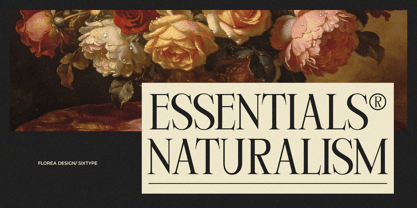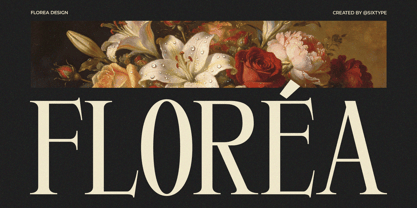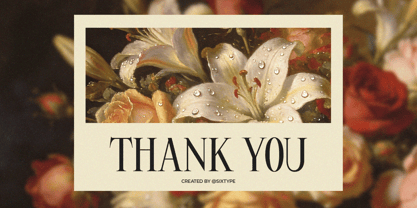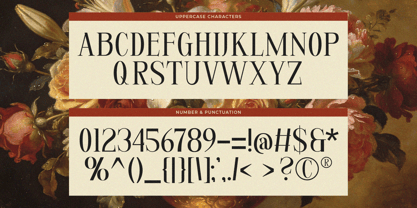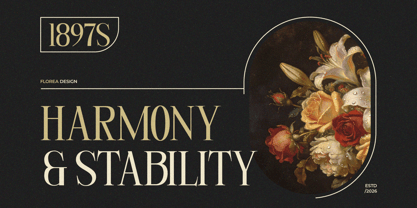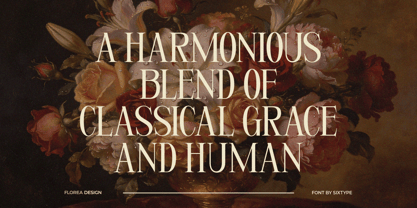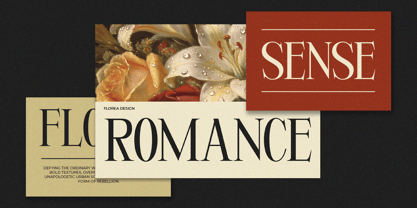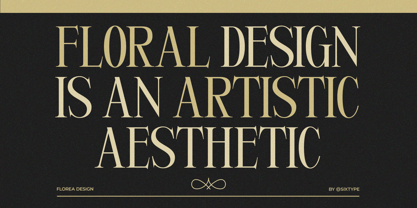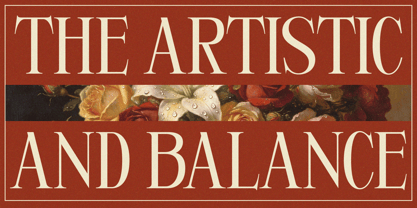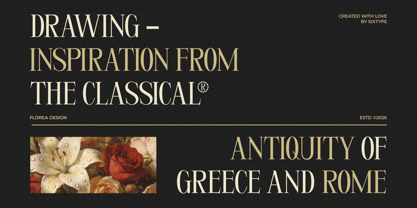
Florea
by Sixtype Foundry
Florea is a refined vintage serif inspired by classical art, botanical illustrations, and the romantic beauty of late 19th-century design. With graceful high-contrast strokes, delicate serifs, and distinctive ornamental details, it captures the elegance of antique typography while maintaining a sophisticated contemporary appeal. Perfect for luxury branding, floral packaging, wedding stationery, editorial layouts, book covers, cosmetics, fashion campaigns, and premium product design, Florea creates a timeless atmosphere filled with romance, artistry, and refinement. Its expressive letterforms bring a sense of heritage, beauty, and sophistication to headlines, logos, and display typography, making every composition feel elegant and memorable.
Sixtype Foundry, an independent studio based in Indonesia, delights in exploring diverse design styles and actively fosters creativity and resource exploration. Fueled by passion, we consistently push typographic boundaries, establishing ourselves as an innovative hub in the evolving design scene. Our goal is simple yet bold, to redefine the art of typeface design, inspiring designers to craft extraordinary visual stories.